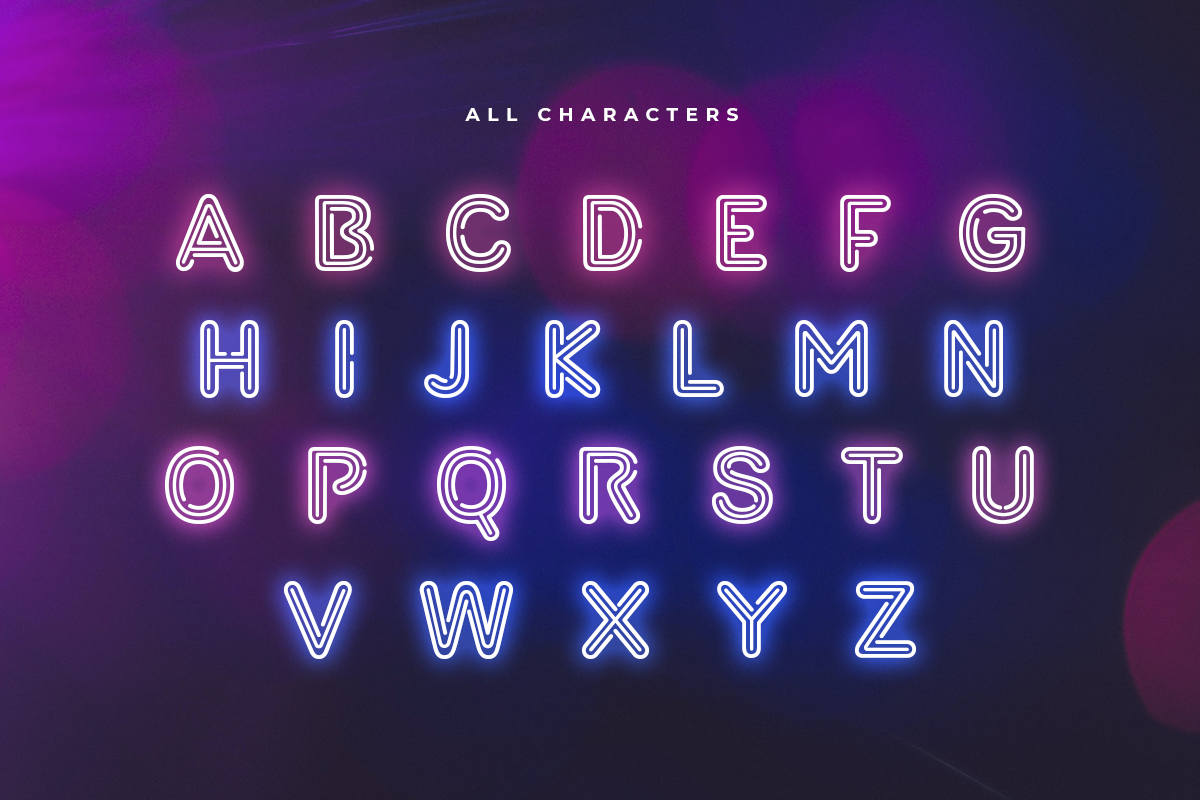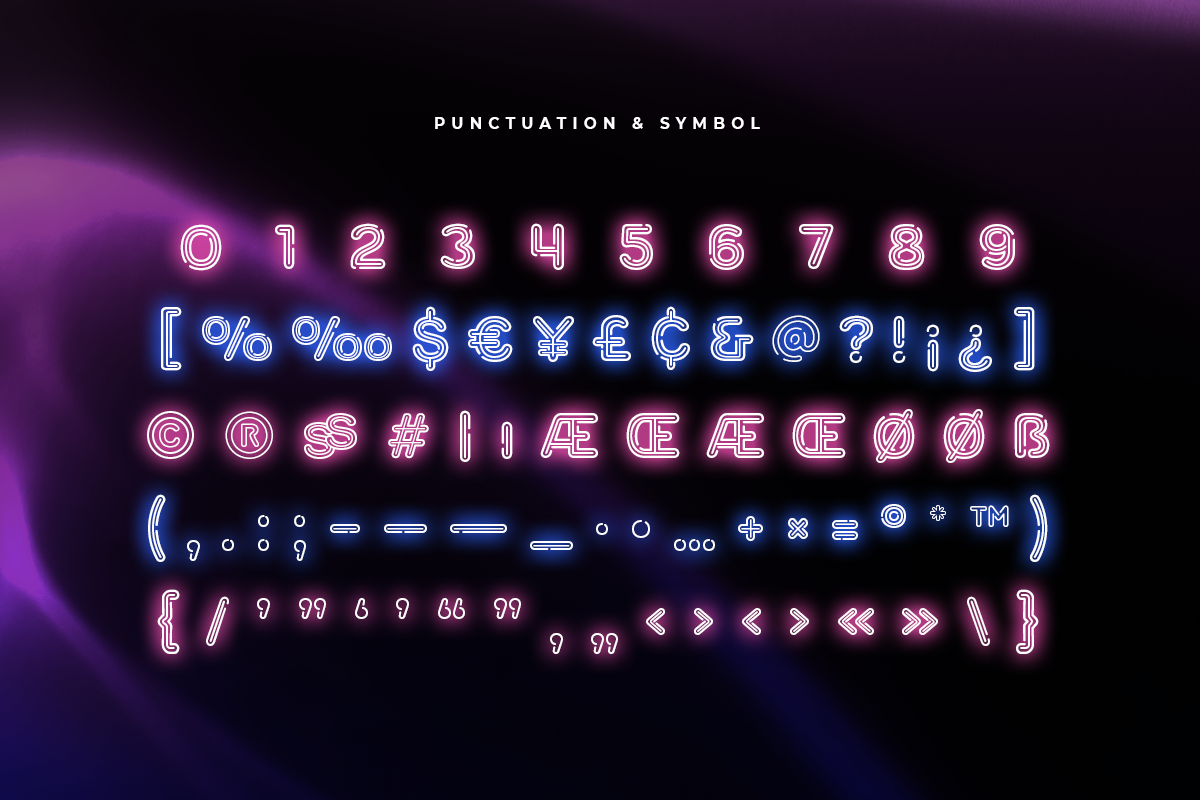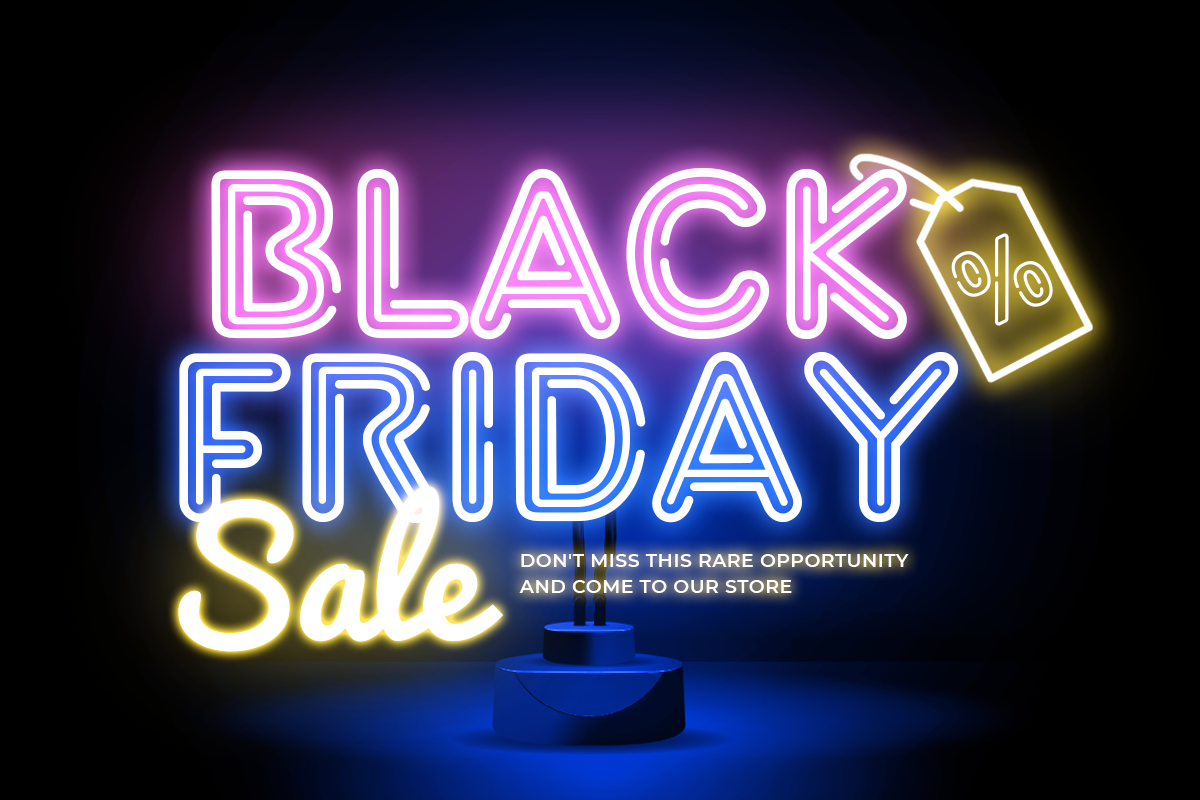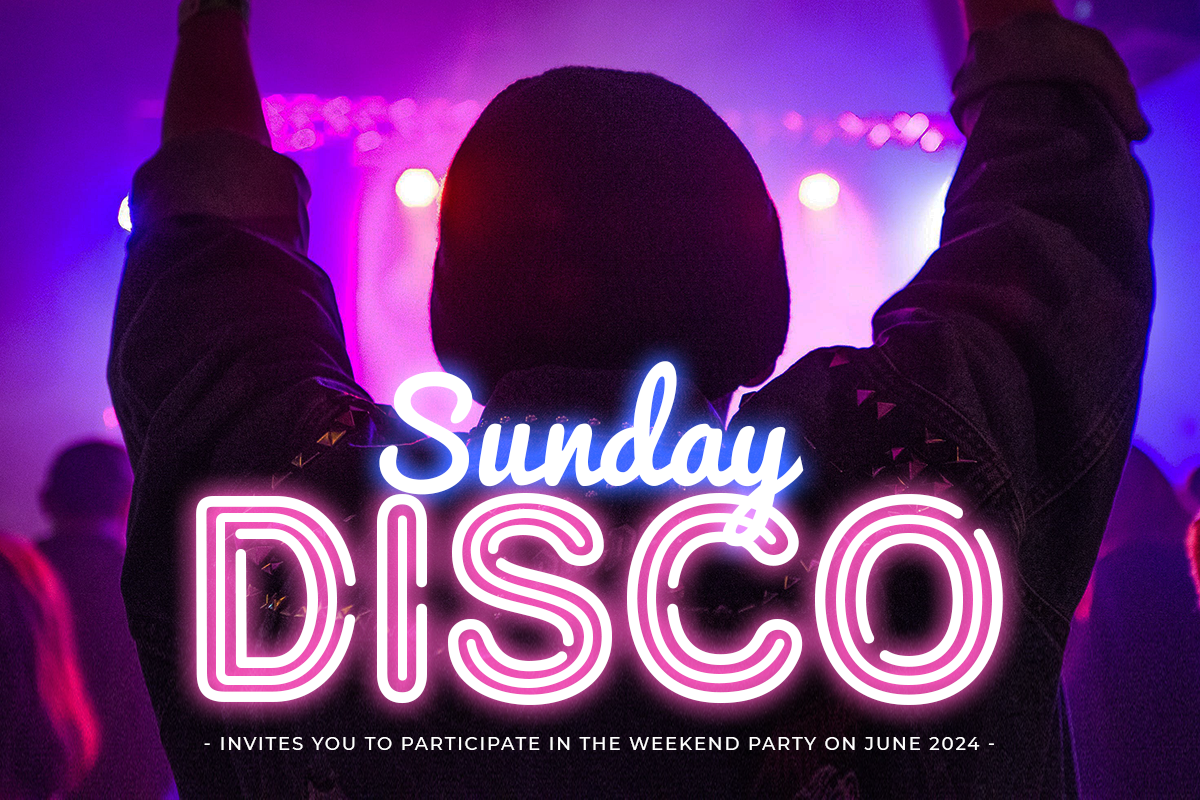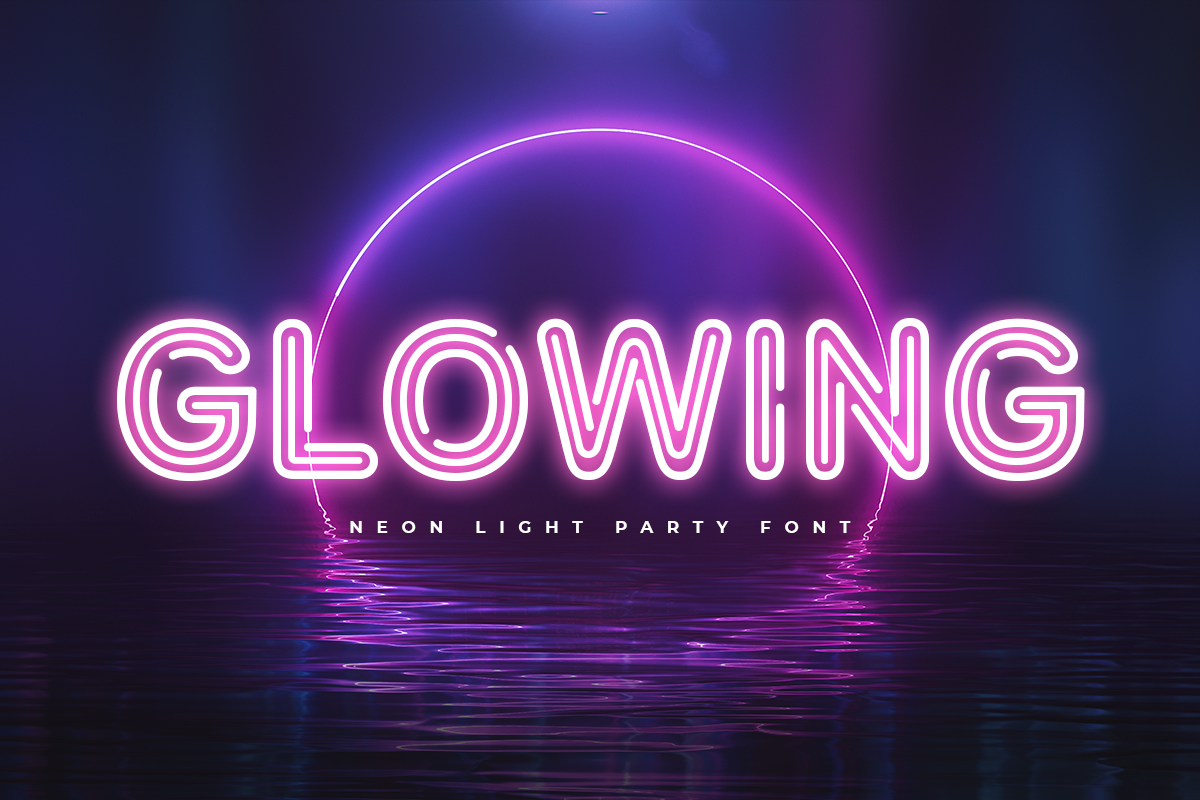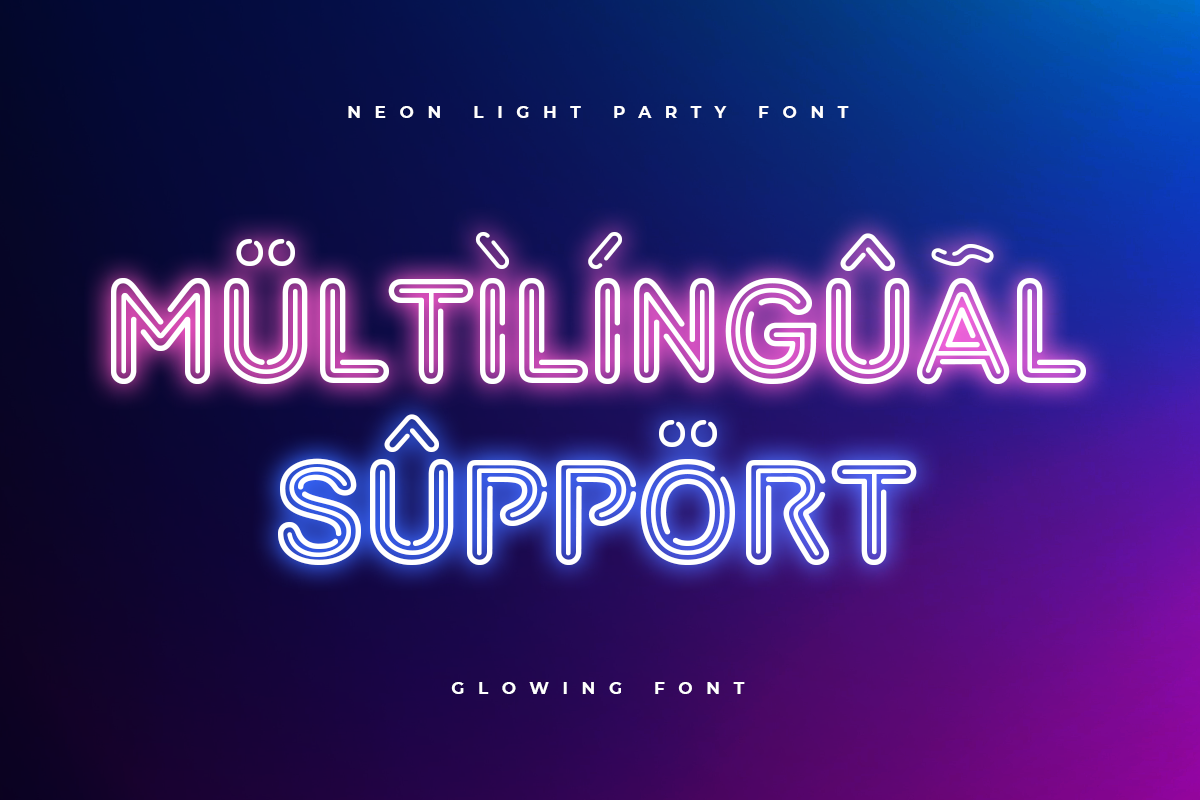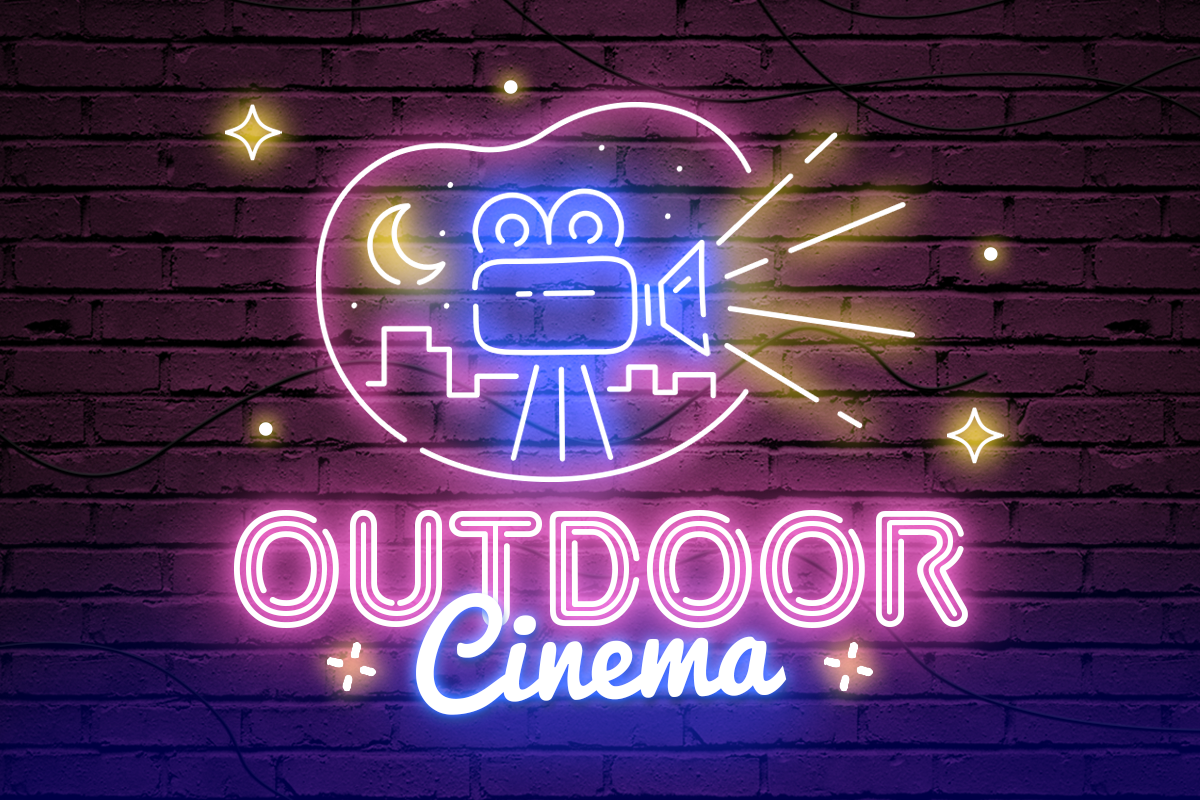
GLOWING - Neon Light Party Font
GLOWING is a Neon Light Party Font with inline shape make your design look unique and modern. A new Display Font that we created special for Headline, Title and more stand out typography needs. It's so perfect to add your style and headline overview. And specially for this font, we crafted for unique style and modern feels so enjoy to create any project that will show your main idea out.
GLOWING Neon Light Party Font ready with:
Any options to get creative variations
Preview as a inspirations that you can do with this font
Ready with Uppercase & Lowercase characters
Why GLOWING - Neon Light Party Font is worth a look
GLOWING - Neon Light Party Font by Hamz Studio fits naturally into Branding, posters, packaging, typography.